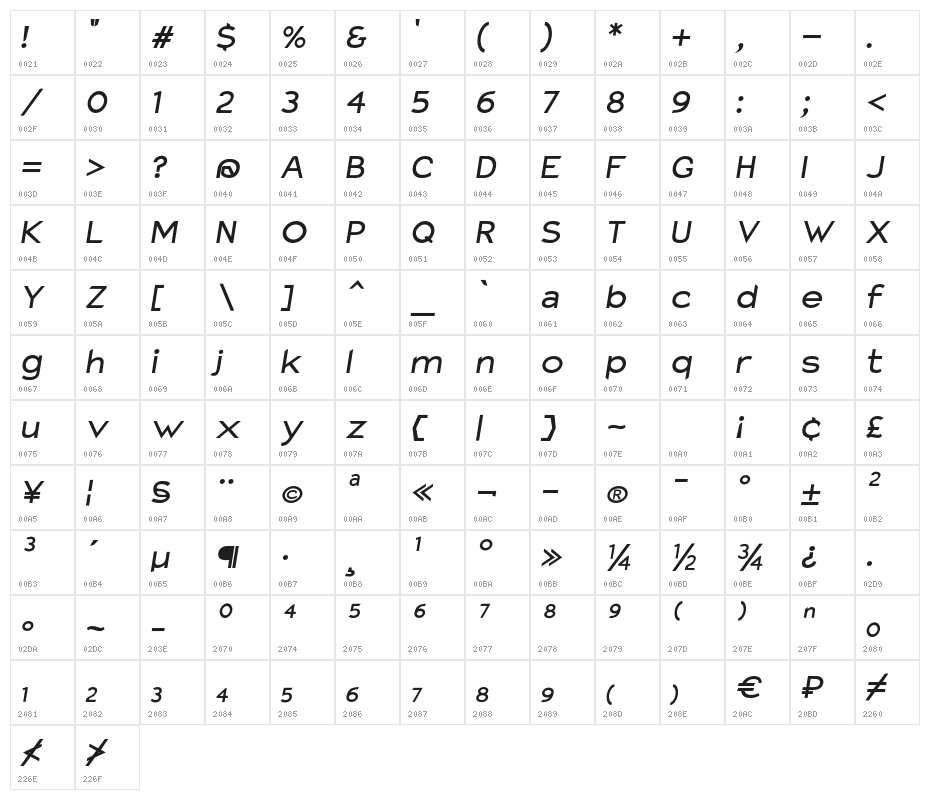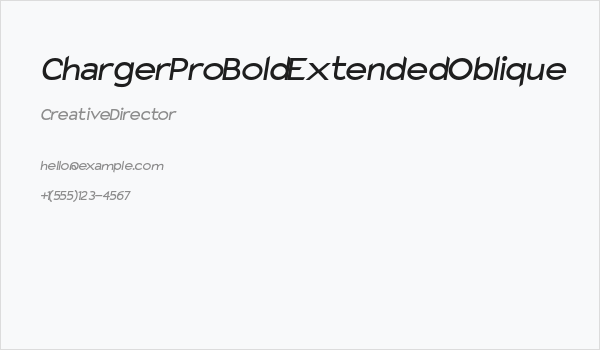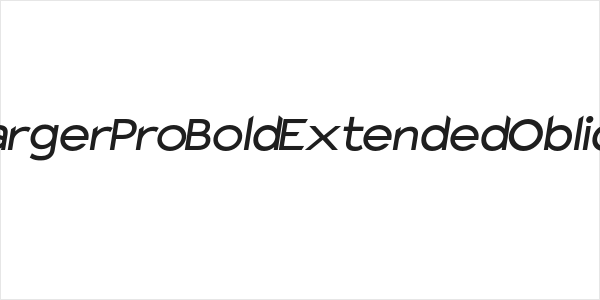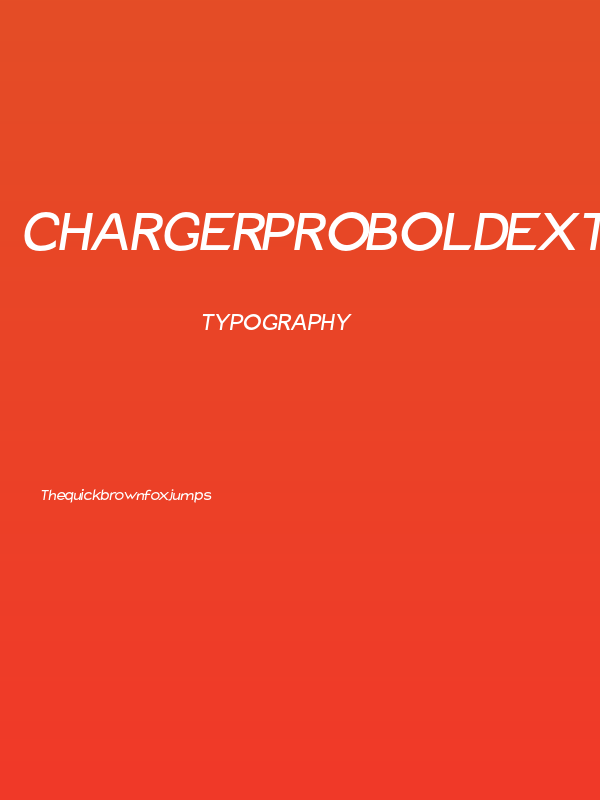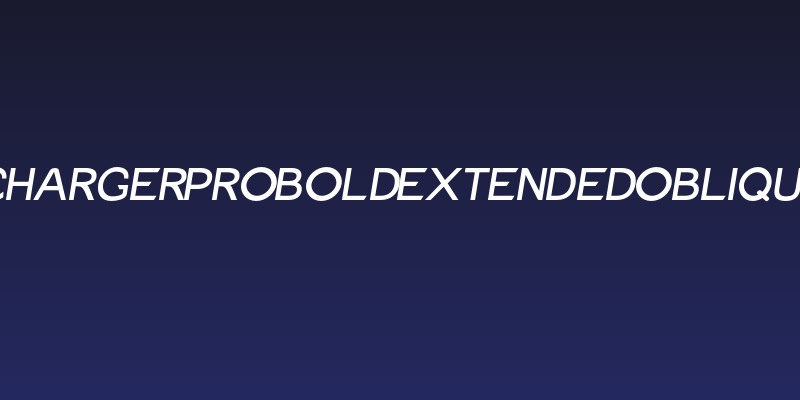
Charger Pro Bold Extended Oblique Font
Charger Pro Bold Extended Oblique Description
This font features a bold and extended style with an oblique slant, giving it a dynamic and modern appearance. The characters are well-defined with smooth curves and a consistent stroke width, contributing to its bold presence. The uppercase and lowercase letters maintain a uniformity that enhances readability, while the numerals and special characters are designed to complement the overall aesthetic. The font's extended width allows for a spacious feel, making it suitable for impactful headlines and titles. Its oblique nature adds a sense of motion and energy, making it ideal for contemporary and forward-thinking designs.
| Proposed Projects | Ideal for branding, advertising, headlines, and modern web design projects. |